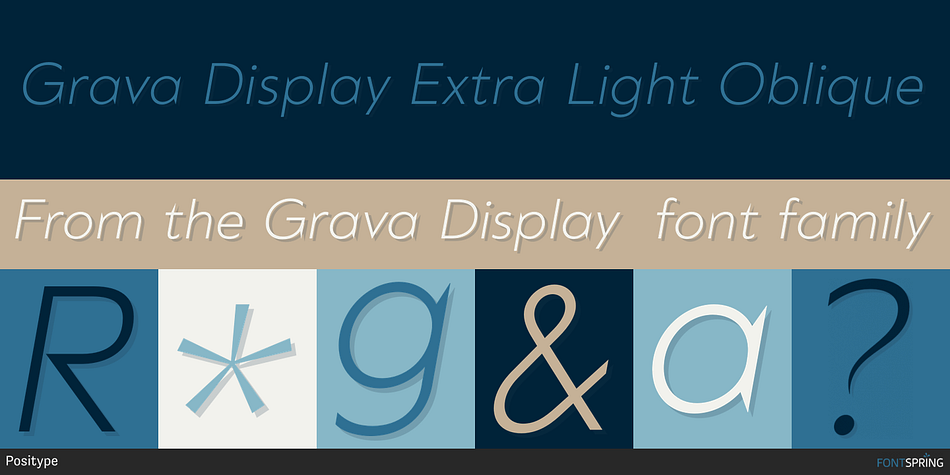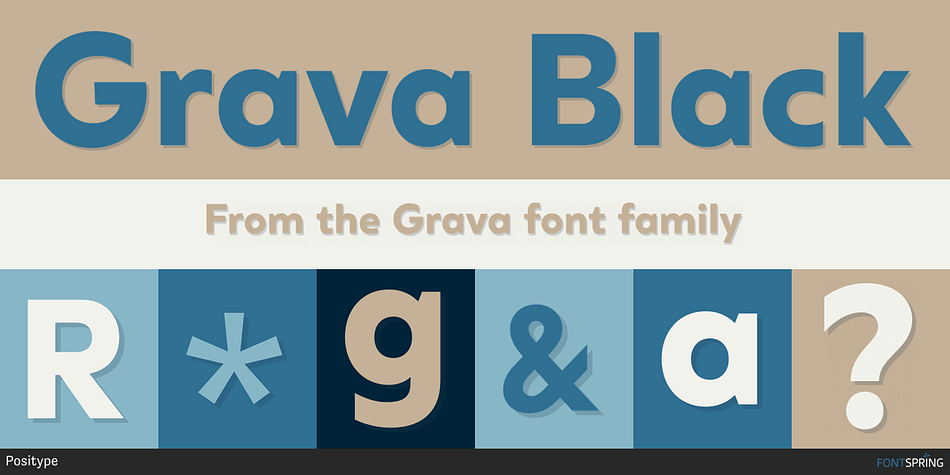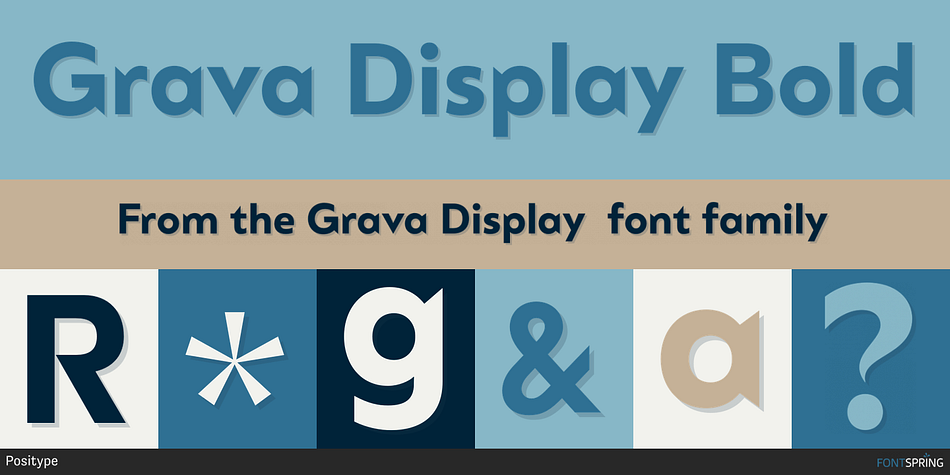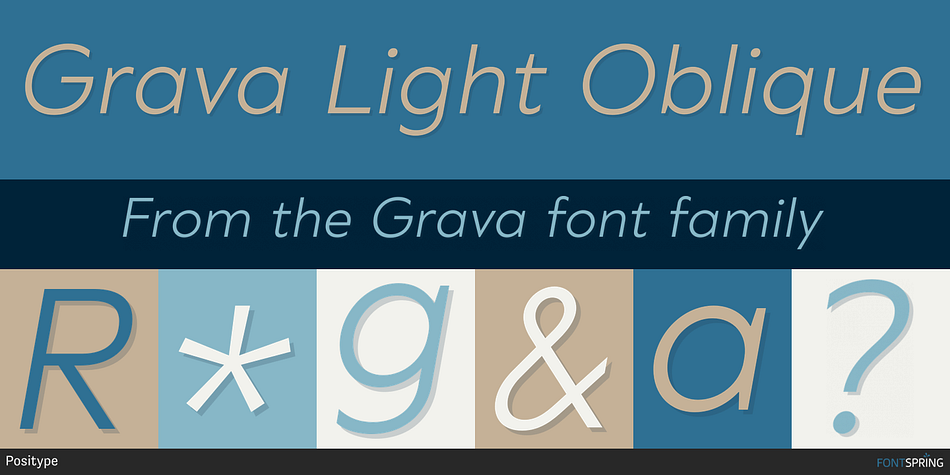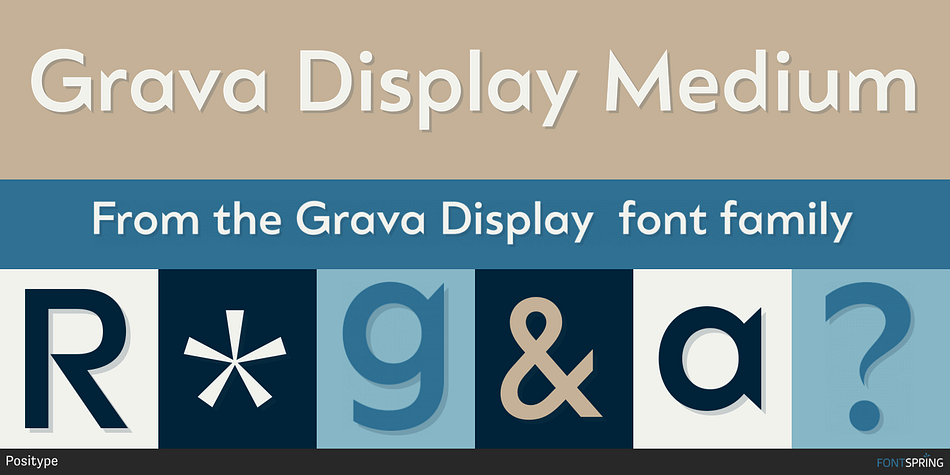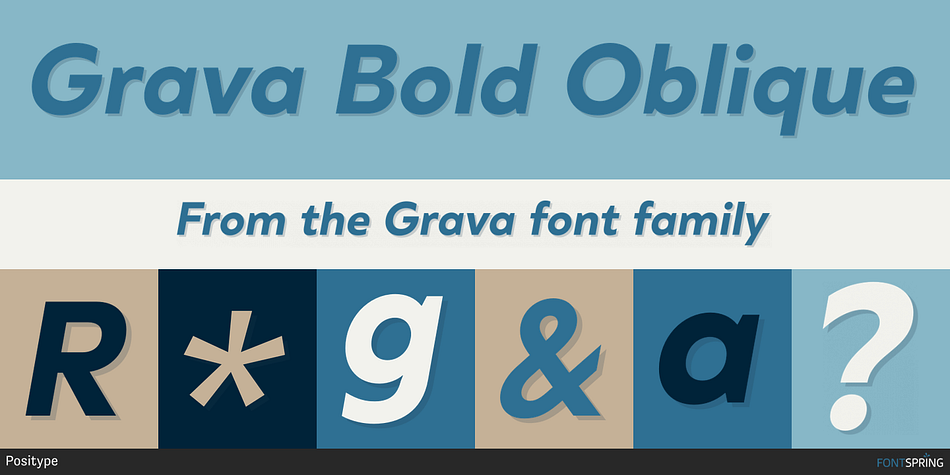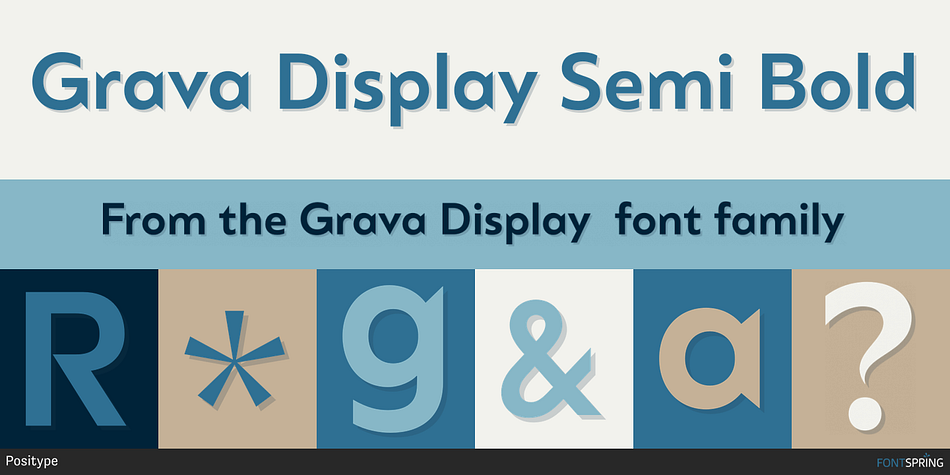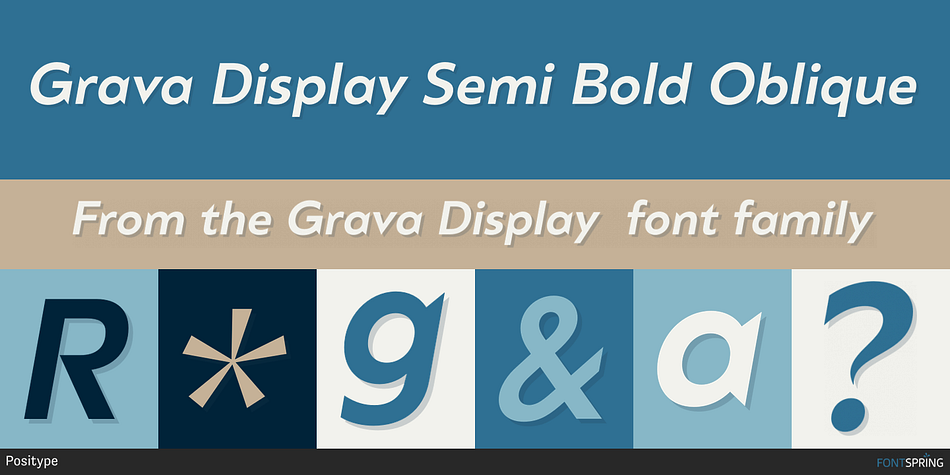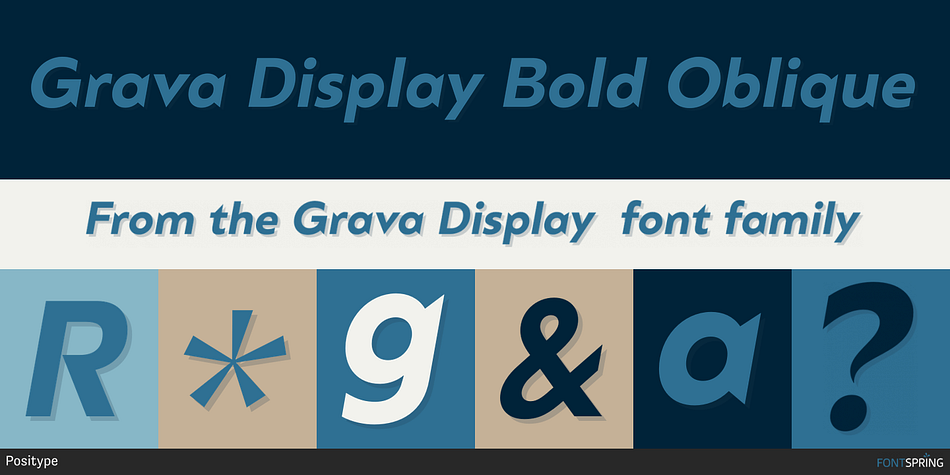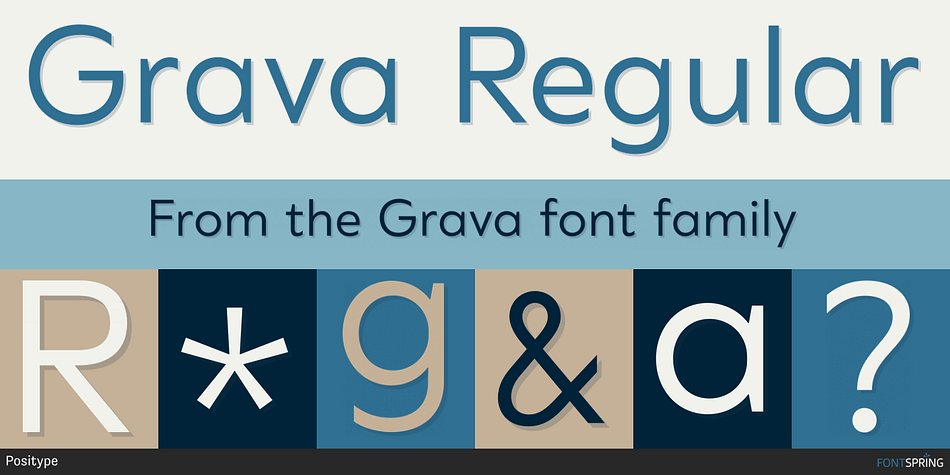
Designed by Neil Summerour, Grava is a display sans and sans serif font collection published by Positype.
Grava is Neil Summerour’s injection of warmth within the geometric sans font category. Historically, geometric sans families have been based on primal shapes — triangle, circle, square — and the more closely they held to those rigid rules, the more internal inconsistencies they showed. Angles won’t match up correctly, letters will lean, overshoots complicate clean typesetting, and idealized circles become grotesque and unwieldy in some weights. Because of issues like these, geometric sans fonts have a reputation of being cold, austere, even a bit “off”. Grava was made to hold a T-square and triangle in one hand while giving a welcoming handshake with the other.
The Grava font family comes in two styles (a normal and a Display), each with 20 weights (Thin to Ultra) and paired with italics. Its design allowed the three scripts of Latin, Cyrillic, and Greek to emerge seamlessly, ensuring Grava will find its home in multilingual publications. Even better, each character in the three scripts is spaced with every other character for a beautifully matched fit, and it’s a buy-one-get-all-three deal since they are all packaged together. The normal style’s large x-height won’t let you down in paragraphs, headings, and any call-out text. And have you seen the angles on those numerals? Pairing Grava’s numerals on a jersey is sure to catch some eyes, just sayin’.
Grava Display is purposefully quirky and sharp, and made for poster sizes, book and album covers, and those websites with a well-defined character — somewhere between playfully self-aware and overtly vintage. Flat edges are abandoned to make way for sharp points and conspicuousness, for geometrical attitude and respectful expressiveness. Corporate reports use Grava Display to take on a professional and current look. The optional ligatures (N–T, L–L, G–A, C–O, almost anywhere an ‘A’ is placed, and more) in both the normal and Display styles invoke a midcentury modernist and high art feel. Now that introductions are done, you can let go of Grava’s hand and put it to work for you.
Foundry | Positype |
Designer | Neil Summerour |